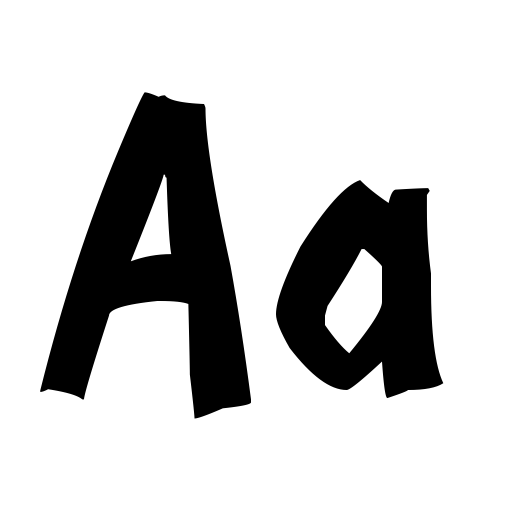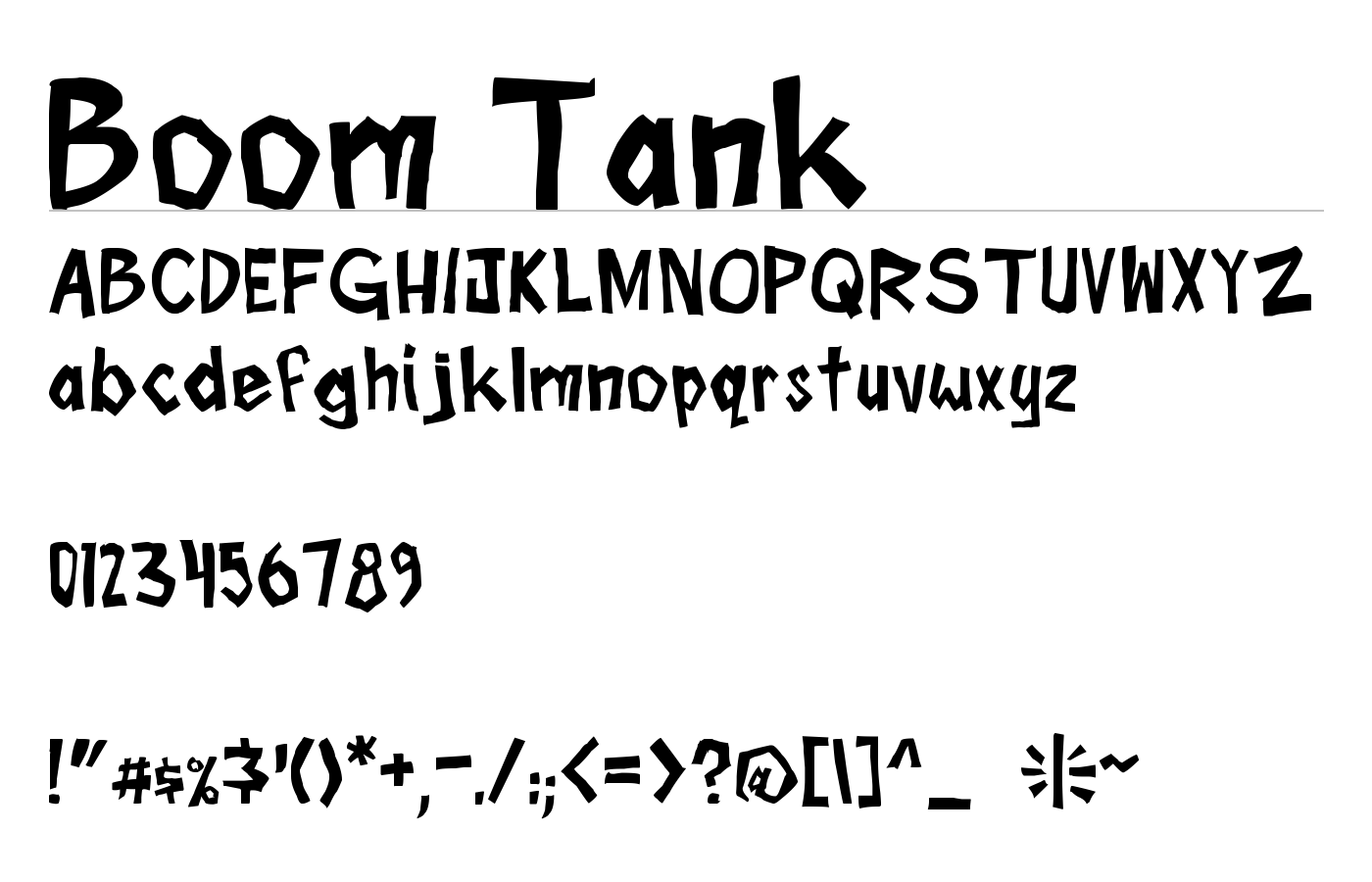
Boom Tank is a playful and bold sans serif font with a hand-drawn feel, featuring irregular, chunky letterforms that convey energy and spontaneity. Its slightly uneven strokes and quirky shapes make it great for fun, casual designs like posters, comics, or children’s branding where a lively and approachable personality is desired. This font works best in headlines and display use, capturing attention with its unique, informal style.
Boom Tank Font
About Boom Tank Font
| Font family | Boom Tank Font |
| Designer | Andeh Pinkard |